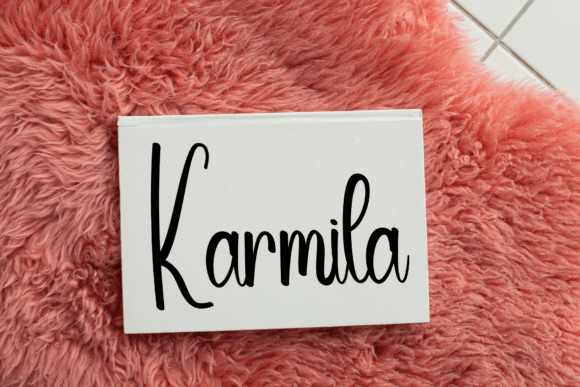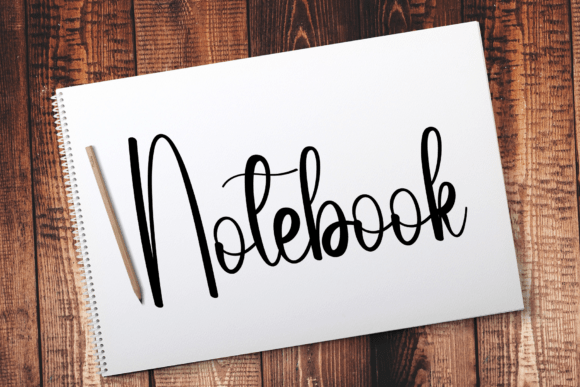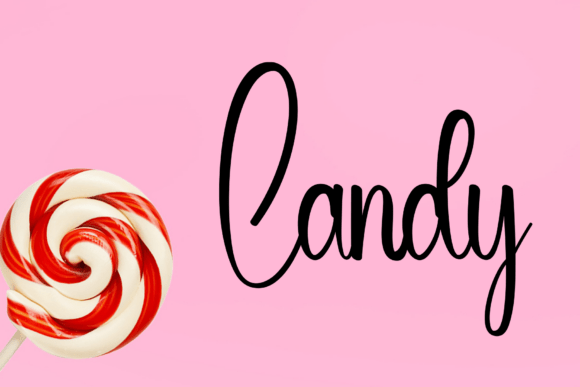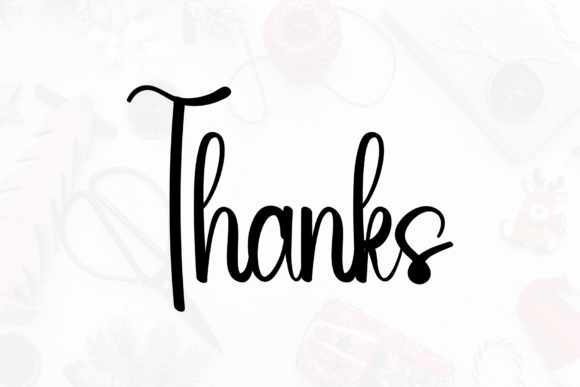
Cute January Font: The Perfect Addition to Your Design Projects
Are you looking for a font that can add a touch of warmth and personality to your design projects? Look no further than Cute January, a charming handwritten font that is sure to capture the hearts of designers and crafters alike. With its smooth strokes and organic lines, Cute January evokes a relaxed atmosphere that makes it perfect for a variety of design applications.
The Characteristics of Cute January Font
Cute January is a beautifully crafted handwritten font that is filled with a sense of heartfelt perfection. Its smooth strokes and organic lines give it a natural and effortless look that is sure to appeal to designers who are looking for a font that can add a personal touch to their work. The font’s relaxed atmosphere makes it perfect for designs that require a friendly and approachable feel.
Uses of Cute January Font
Cute January is a versatile font that can be used for a wide range of design projects. Here are some of the ways you can use this charming font:
- Branding: Cute January is perfect for branding projects that require a friendly and approachable feel. Use it to create logos, business cards, and other marketing materials that reflect your brand’s personality.
- Invitations: Whether you’re designing invitations for a wedding, birthday party, or baby shower, Cute January is a great choice. Its smooth strokes and organic lines give it a warm and inviting feel that’s sure to make your invitations stand out.
- Social Media Graphics: Cute January is also perfect for social media graphics, such as Facebook posts, Instagram stories, and Pinterest pins. Use it to create eye-catching graphics that will help you connect with your audience.
Why Choose Cute January Font?
There are many reasons why Cute January is a great choice for designers and crafters. Here are a few:
- Unique and Creative: Cute January is a unique and creative font that will help you stand out from the crowd. Its smooth strokes and organic lines give it a distinctive look that’s sure to capture the attention of your audience.
- Easy to Read: Despite its creative and artistic look, Cute January is easy to read and understand. This makes it perfect for designs that require a clear and concise message.
- Versatile: Cute January is a versatile font that can be used for a wide range of design projects. Whether you’re designing for print or digital media, this font is sure to work well.
Tips for Using Cute January Font
Here are a few tips for using Cute January font in your design projects:
- Pair it with Other Fonts: Cute January looks great when paired with other fonts. Try pairing it with a bold sans-serif font for a contrasting look.
- Use it for Headings: Cute January is perfect for headings and titles. Use it to create eye-catching headings that will grab the attention of your audience.
- Experiment with Colors: Cute January looks great in a variety of colors. Experiment with different colors to find the one that works best for your design.
Cute January is a charming handwritten font that is sure to capture the hearts of designers and crafters alike. With its smooth strokes and organic lines, it’s perfect for a variety of design projects, from branding and invitations to social media graphics. Whether you’re looking for a font that can add a touch of warmth and personality to your designs, Cute January is a great choice.
Get Creative with Cute January Font